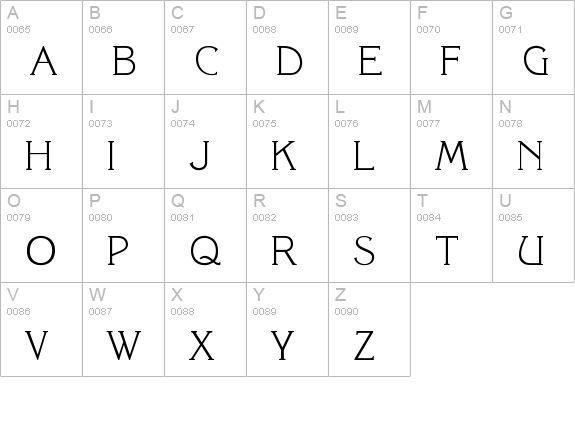
Introducing Korinth-Xlight font, a sophisticated and elegant typeface designed for modern design projects. With its clean lines and sleek appearance, Korinth-Xlight exudes a sense of professionalism and refinement. This font is perfect for creating sleek logos, elegant branding materials, and stylish marketing materials. What makes Korinth-Xlight even more appealing is that it is available for free download at FontsMarket.com. This means you can easily access this high-quality font and use it in your projects without any cost. Whether you're a professional designer looking for a new font to add to your collection or a hobbyist looking to enhance your creative projects, Korinth-Xlight is a fantastic choice. Don't miss out on the opportunity to elevate your designs with the timeless beauty of Korinth-Xlight. Download this font for free today at FontsMarket.com and see the difference it can make in your projects.